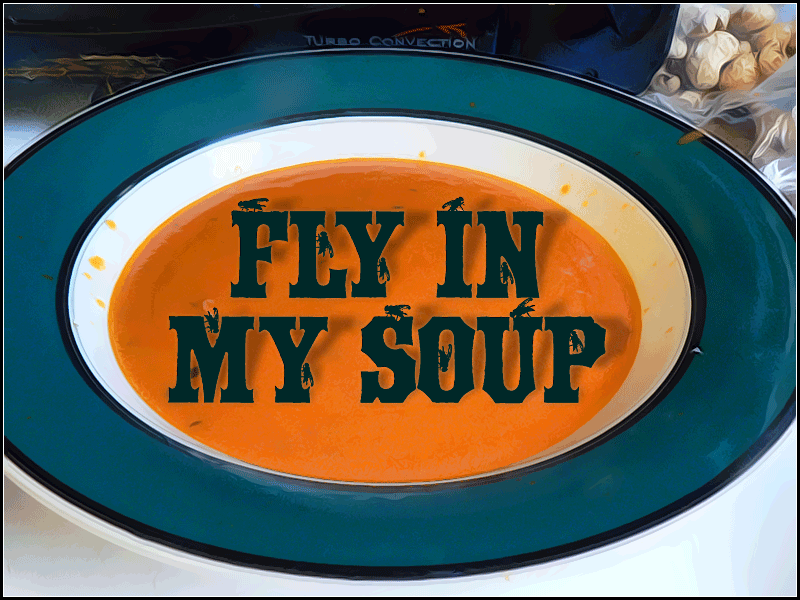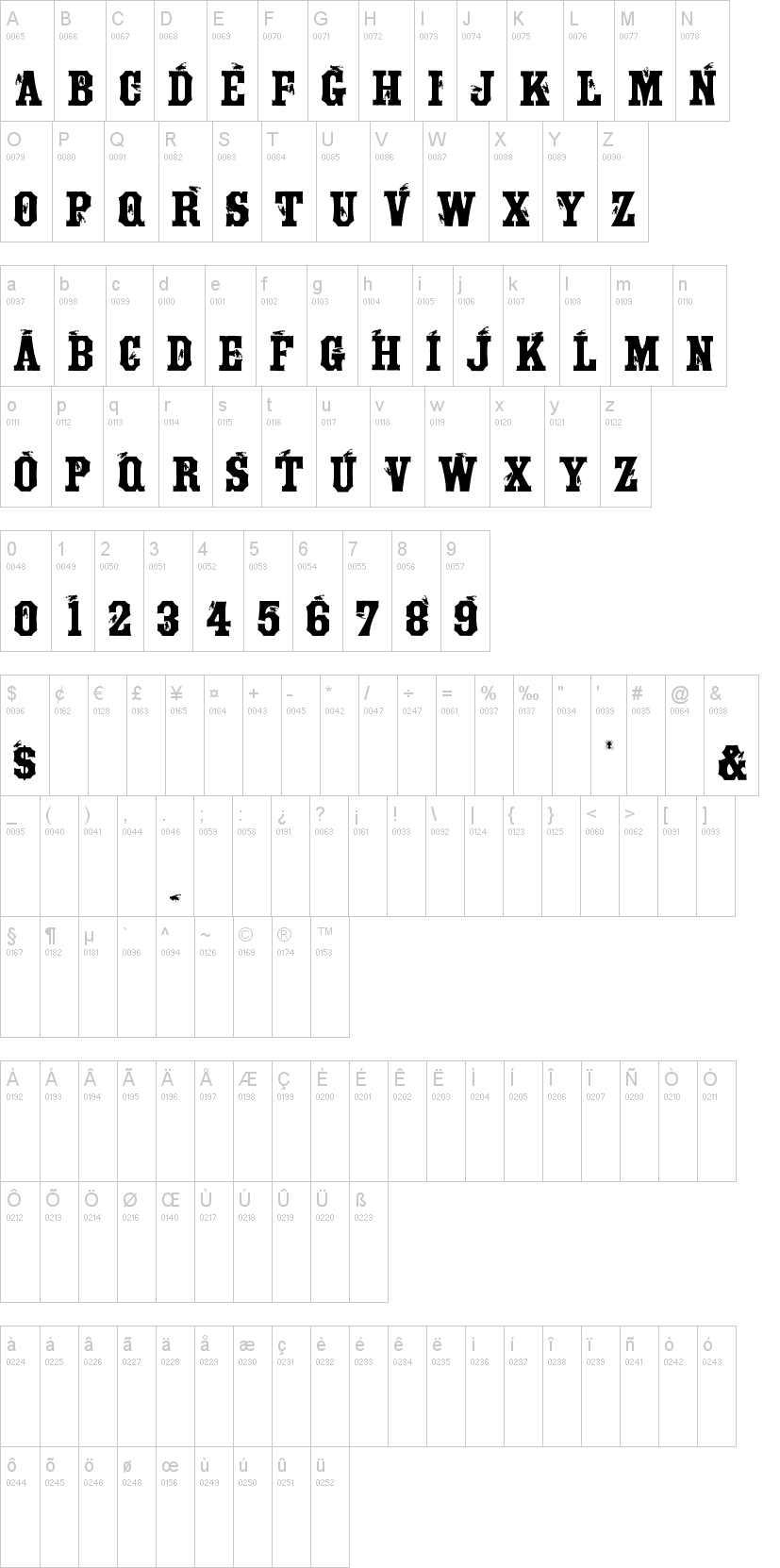
Note of the authorUse uppercase and lowercase for alternate fly placement. For instance, if you put two Os together and don't want the flies to be identical, use one lowercase and one uppercase. Sorry, no maggots.